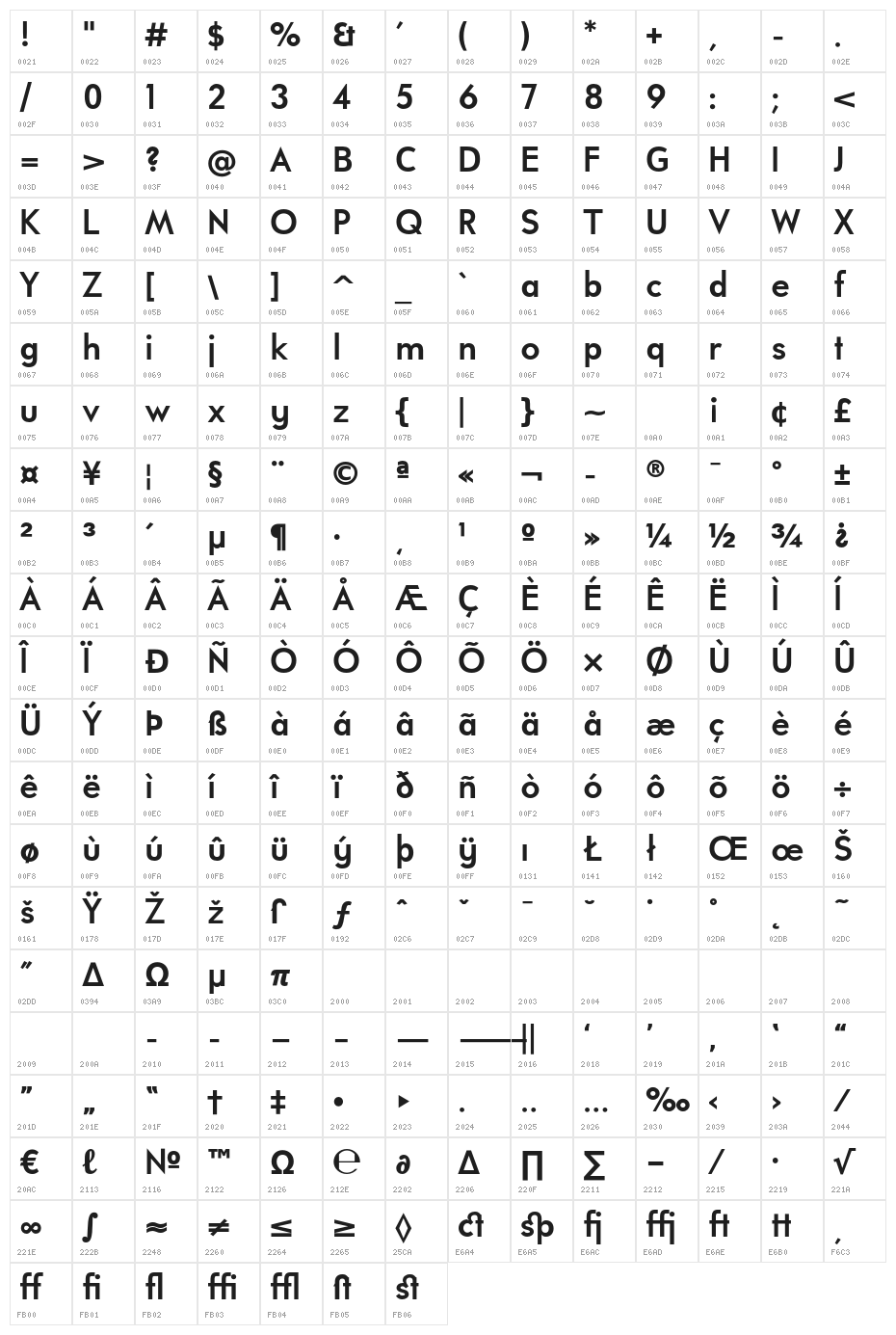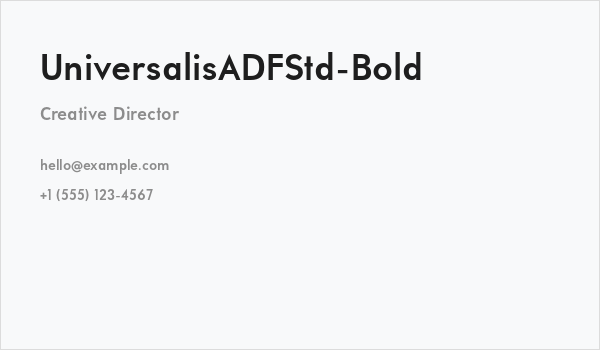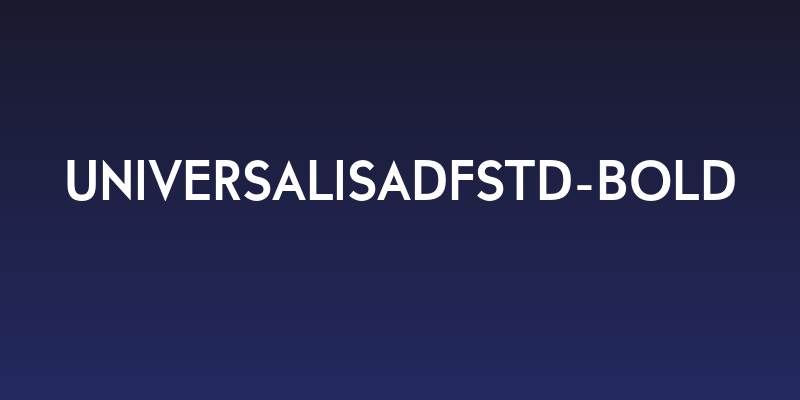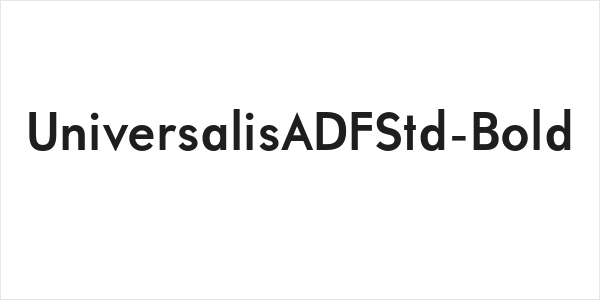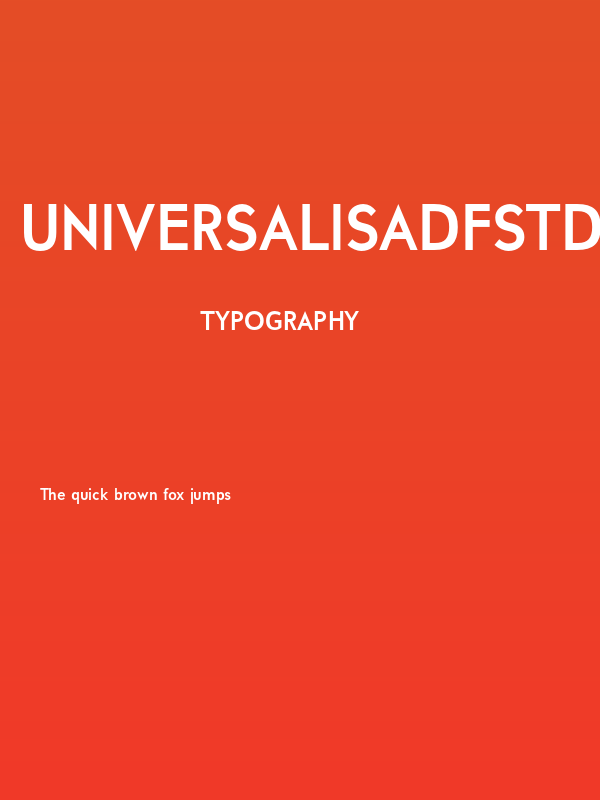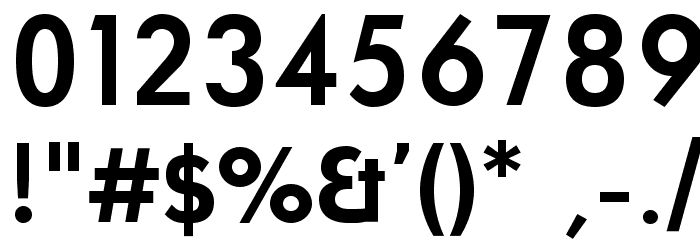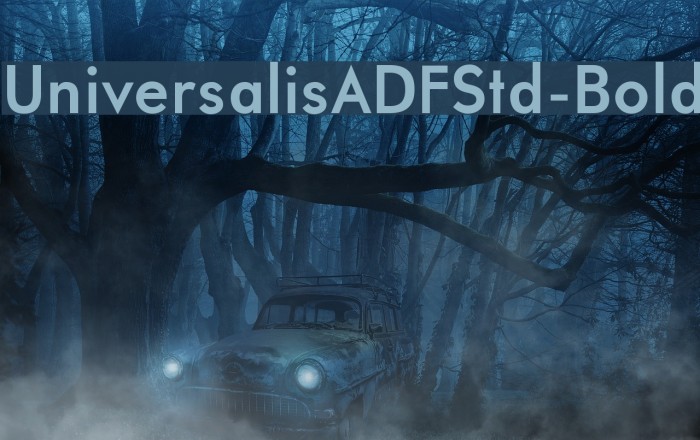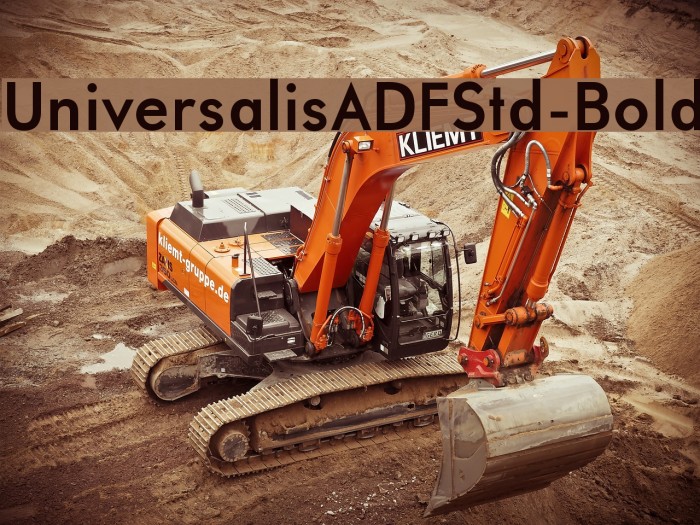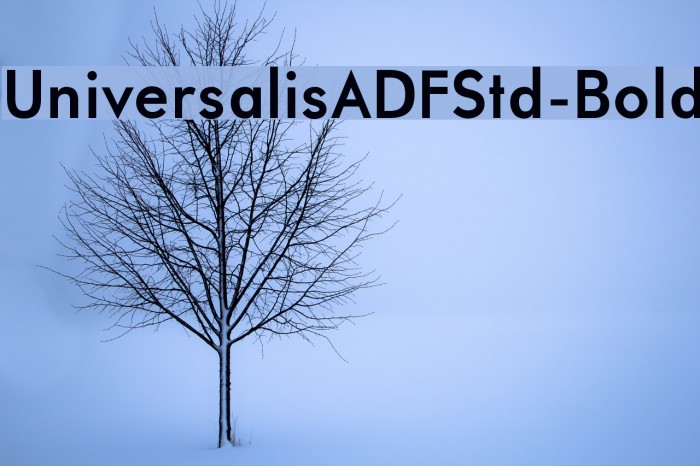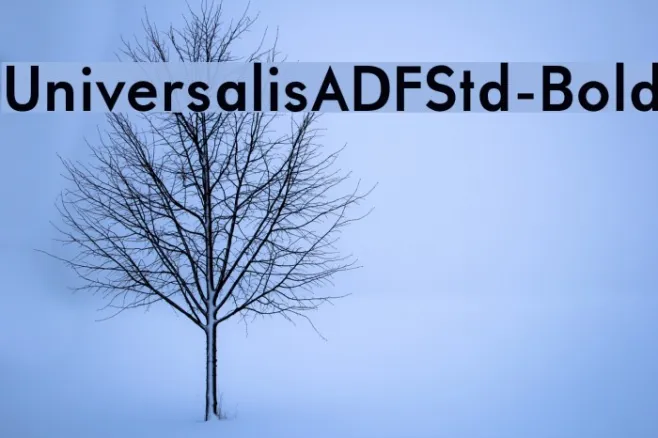
UniversalisADFStd-Bold Font
UniversalisADFStd-Bold Description
This font features a clean and modern sans-serif design with bold, uniform strokes that provide a strong and confident appearance. The characters are well-proportioned, offering excellent readability across both uppercase and lowercase letters. The numerals and special characters maintain the same boldness, ensuring consistency throughout. Its geometric shapes and even stroke widths make it suitable for a variety of applications, from digital to print media.
| Proposed Projects | Ideal for branding, advertising, headlines, and digital interfaces where clarity and impact are essential. |